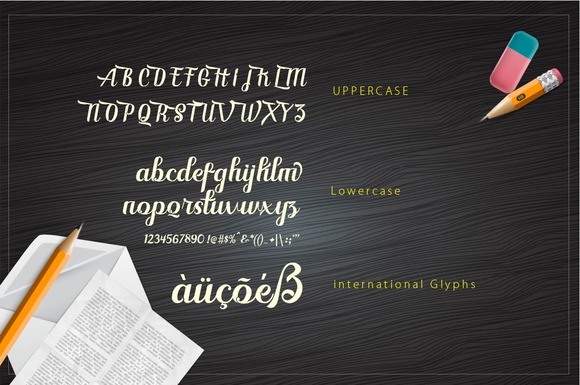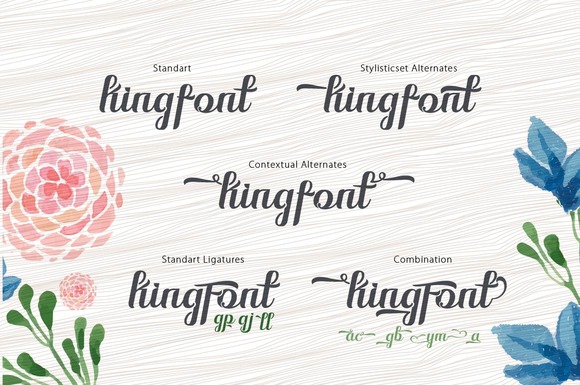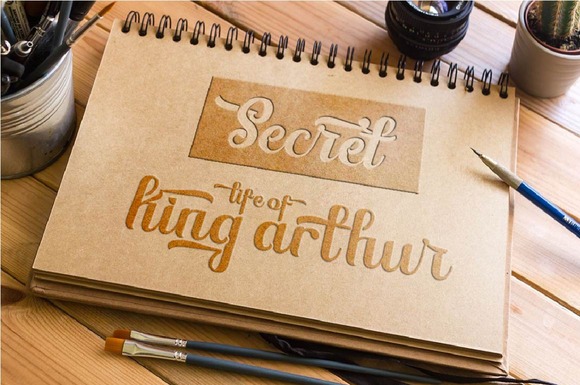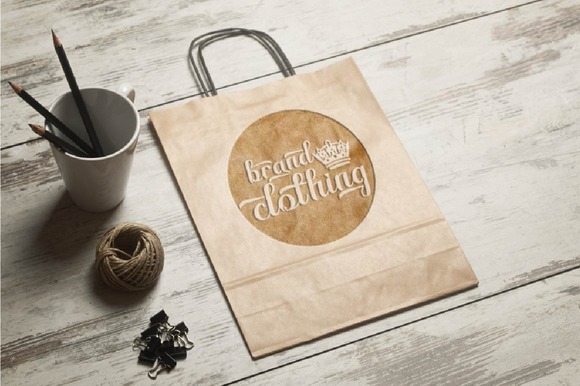
King Font
About King Font
Kingfont script is another lovely modern calligraphy typeface with a simple, classic, and elegant touch. Can be used for various purposes such as headings, logos, wedding invitations, t-shirts, letterheads, signages, labels, news, posters, badges, and much more!